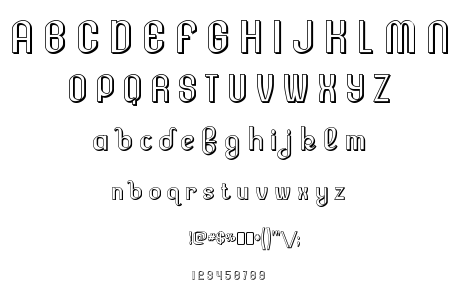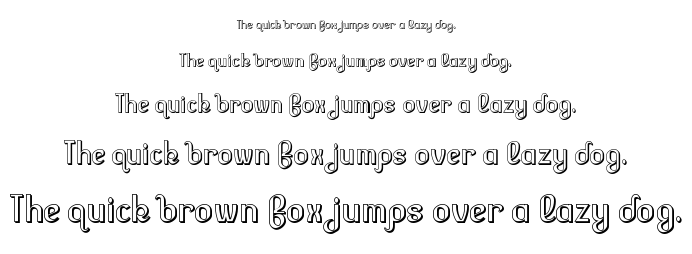
Lesser Concern
Lesser Concern Font
Lesser Concern is a modular, calligraphic display font based on capsule shapes. Don’t forget to read the files inside the zip for details.